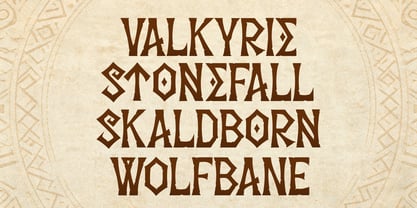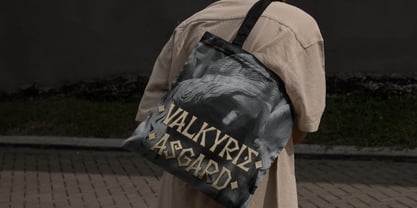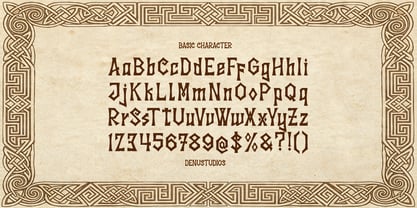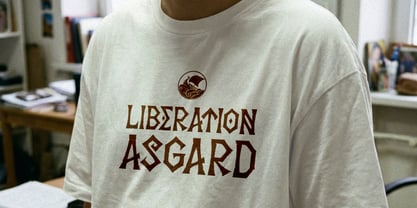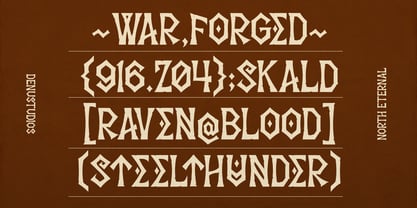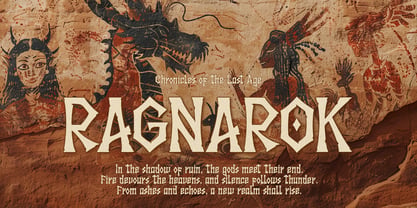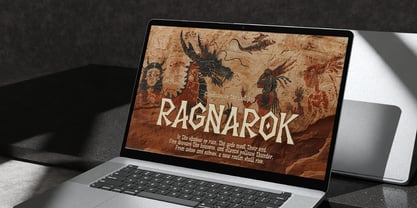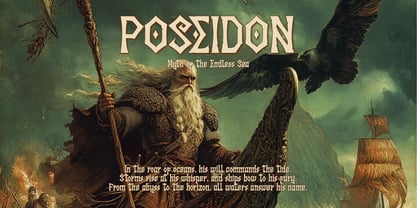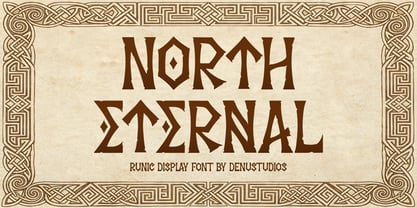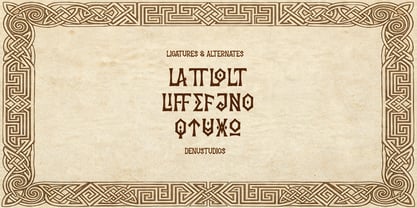
North Eternal
by Denustudio
The North Eternal Font Family was designed by Dede Nugraha and published by Denustudio. North Eternal contains 1 styles. More about this family
North Eternal | Runic Display Font, from Denustudios, suitable for any projects such as: logos, branding projects, homeware designs, product packaging, mugs, quotes, posters, shopping bags, t-shirts, book covers, name card, invitation cards, greeting cards, label, photography, watermark, special events, and all your other lovely projects that need Runic a taste.
Designers: Dede Nugraha
Foundry: Denustudio